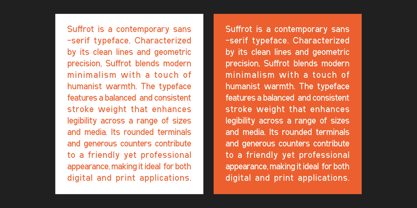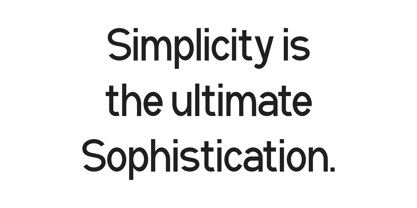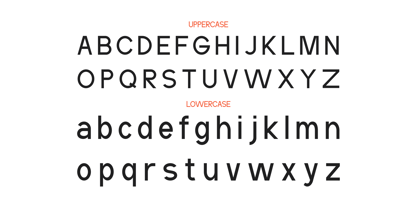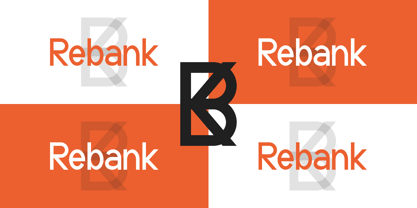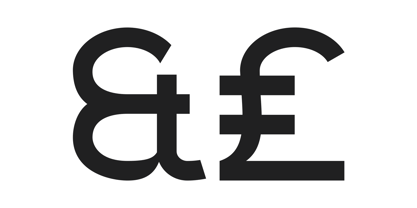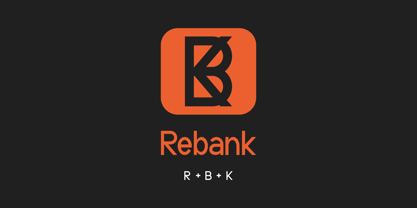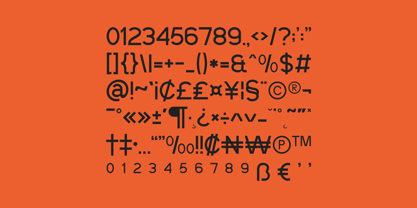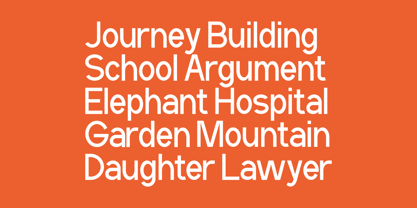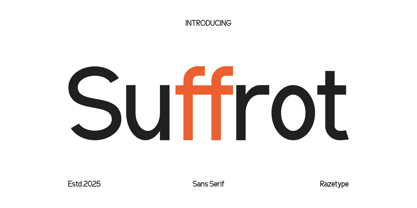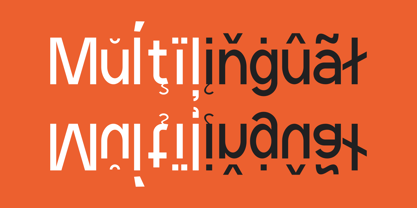
Suffrot
by Razetype
The Suffrot Font Family was designed by Ahmad Faizal and published by Razetype. Suffrot contains 1 styles. More about this family
Introducing A New Sans Serif Suffrot is a modern sans-serif typeface that embodies clarity, simplicity, and geometric precision. Designed for versatility, it features clean lines, consistent stroke weights, and open letterforms that enhance legibility across digital and print media. Its minimalistic structure gives it a professional and contemporary feel, making it highly suitable for branding, editorial layouts, and user interface design. The typeface maintains a balanced aesthetic, with distinctive characters like the rounded “a” and symmetrical “f” offering both personality and functionality. Overall, Suffrot conveys a sense of trust, innovation, and modernity, ideal for forward-thinking brands and digital-first applications.
Designers: Ahmad Faizal
Current Foundry: Razetype